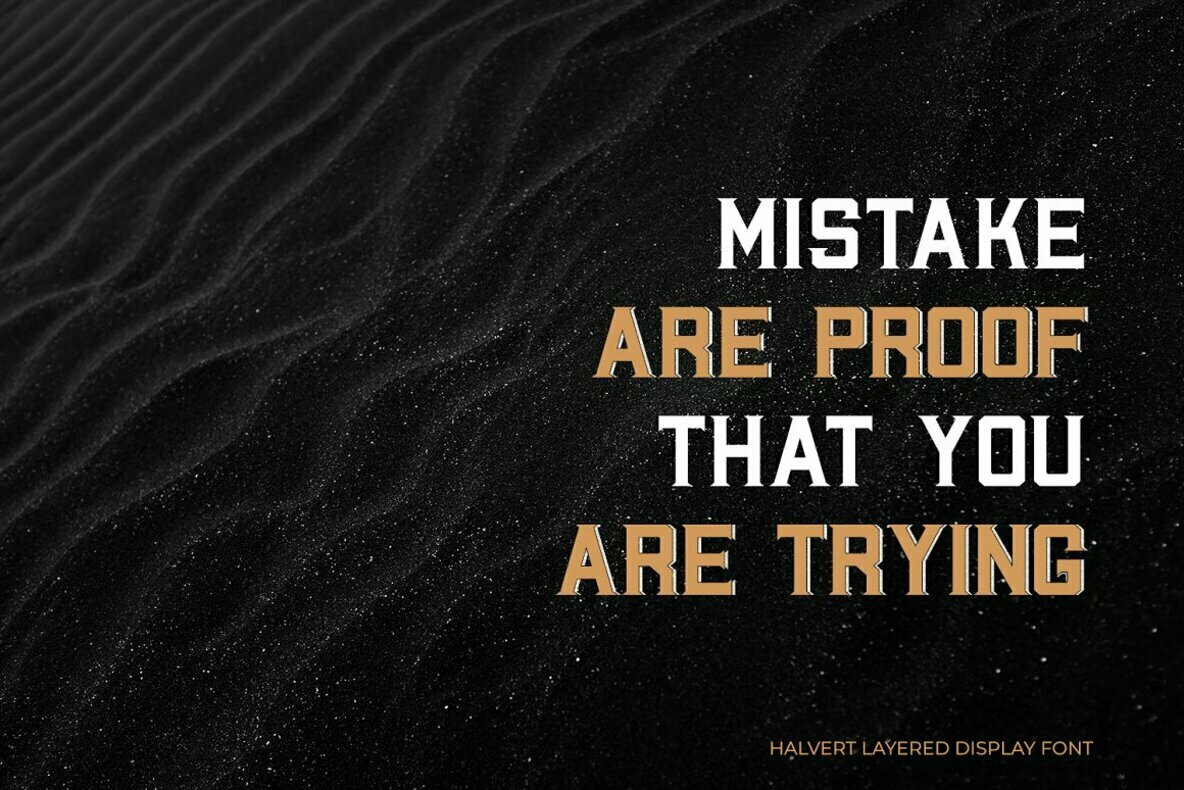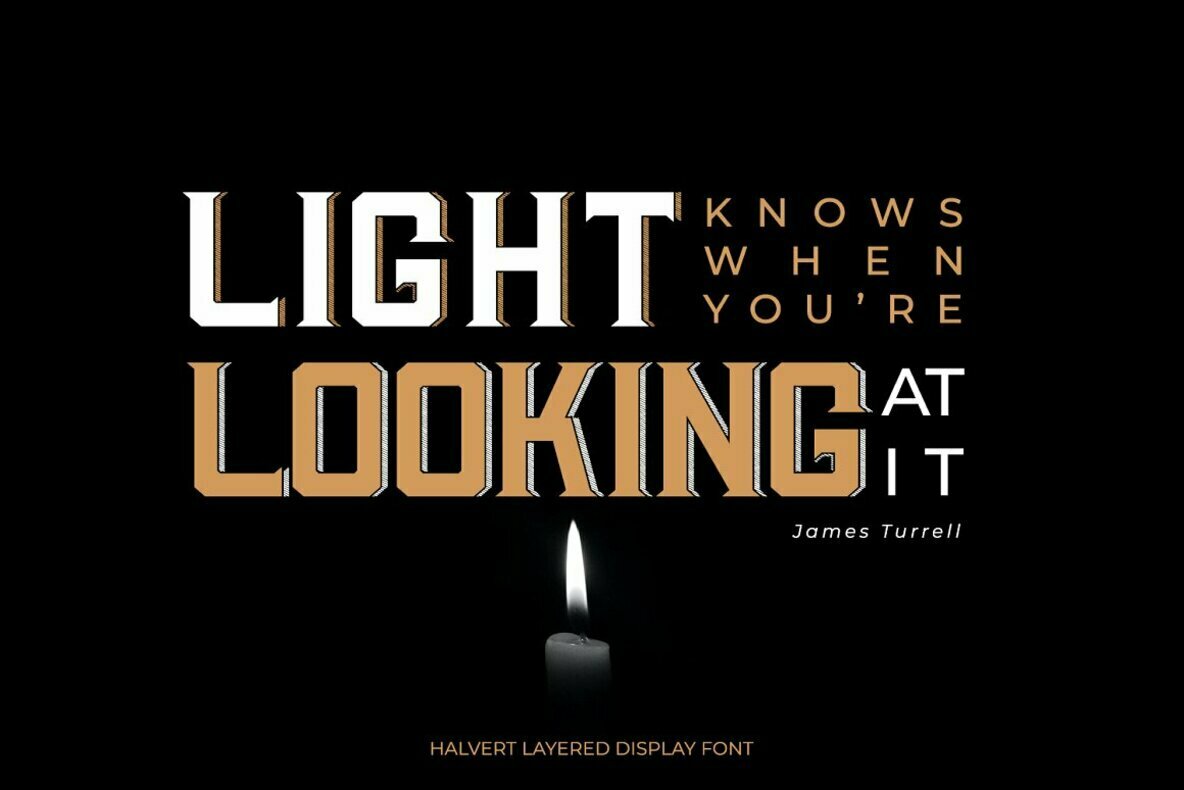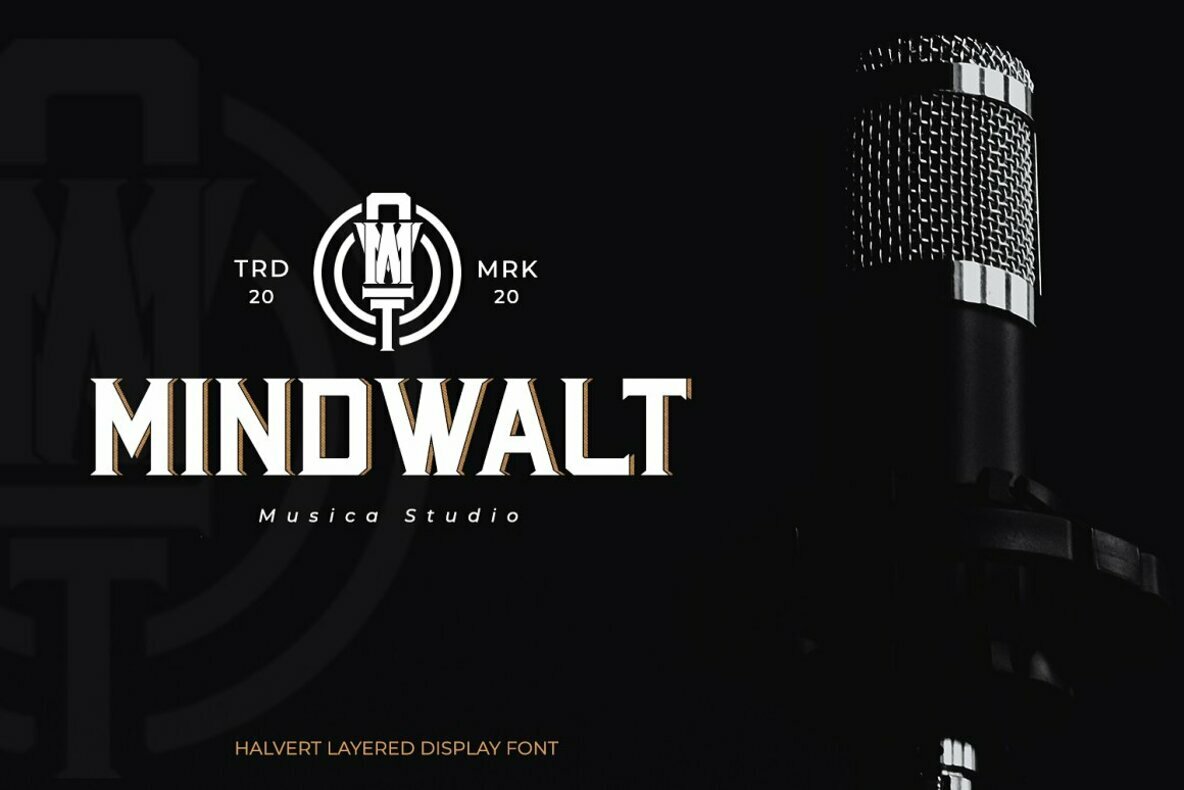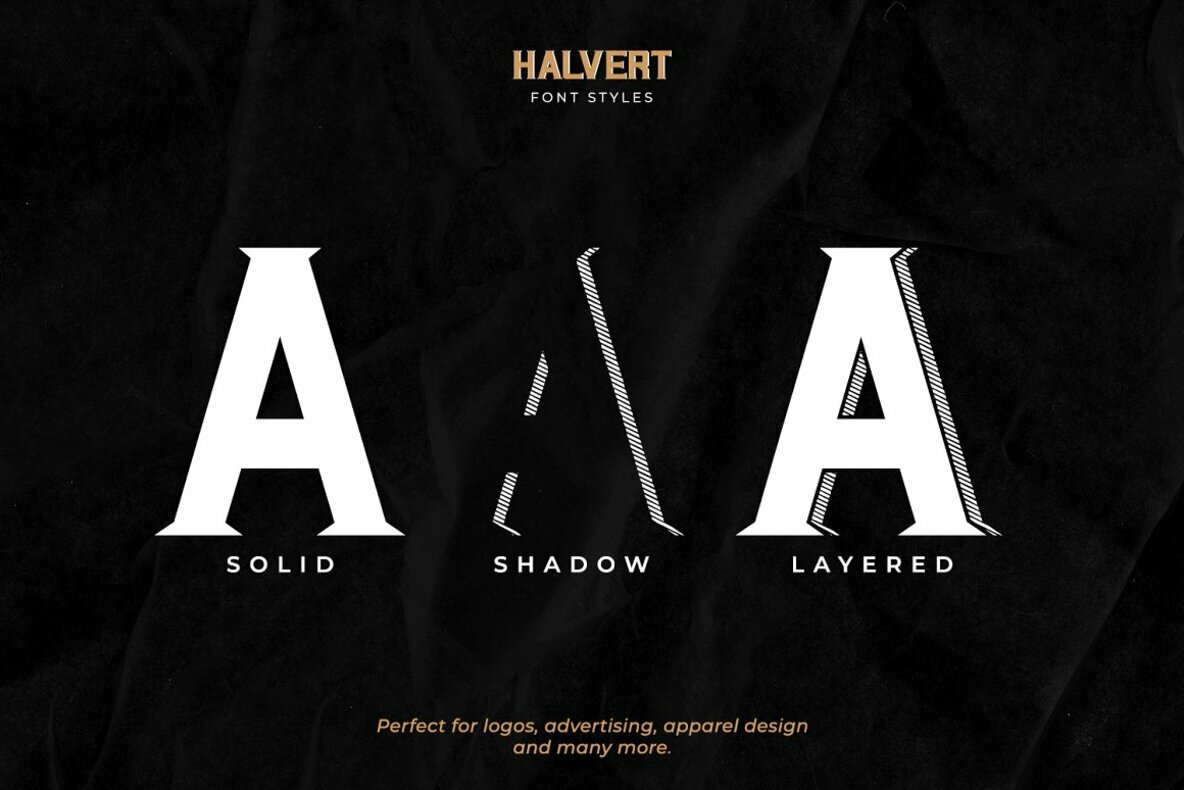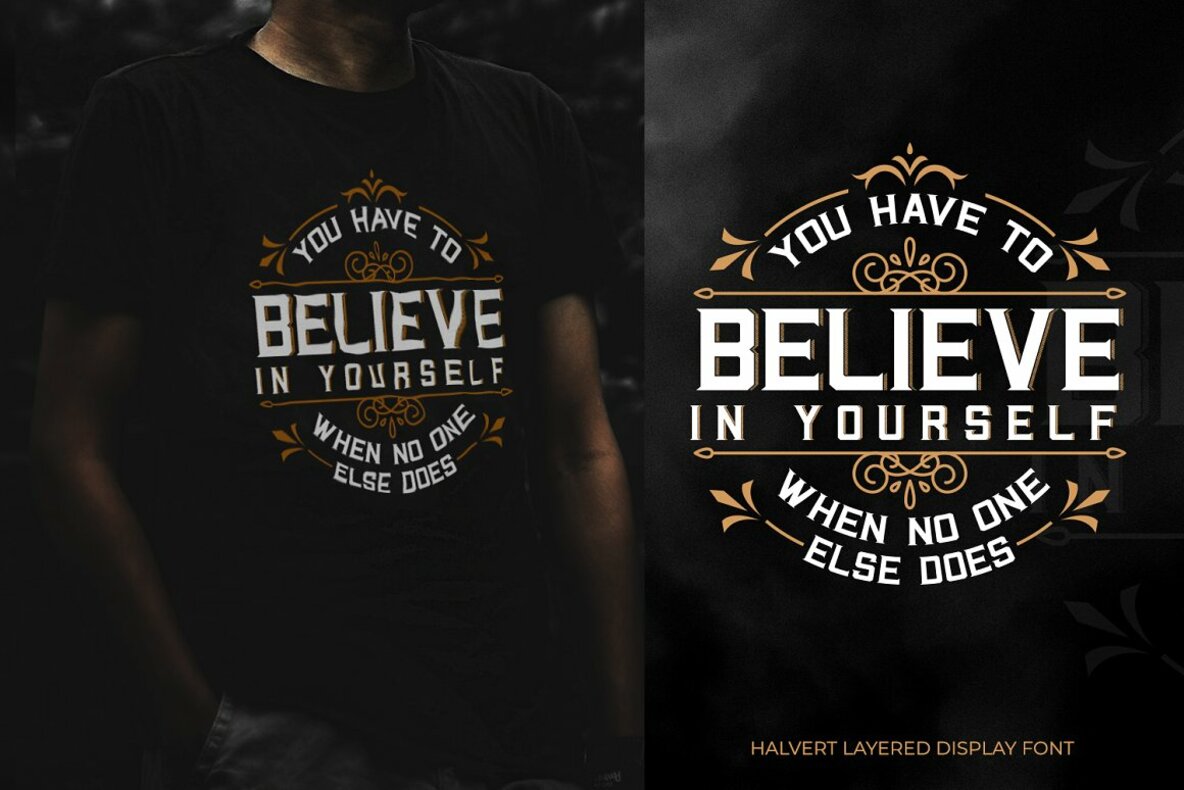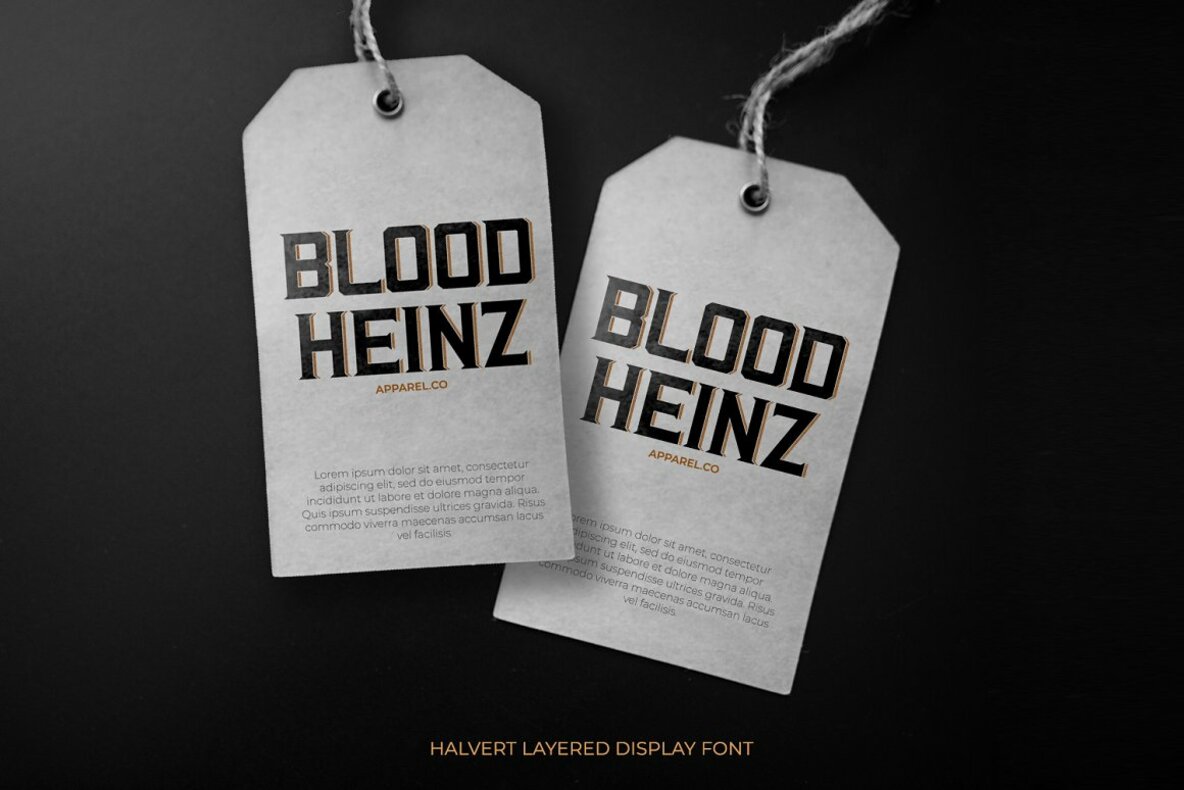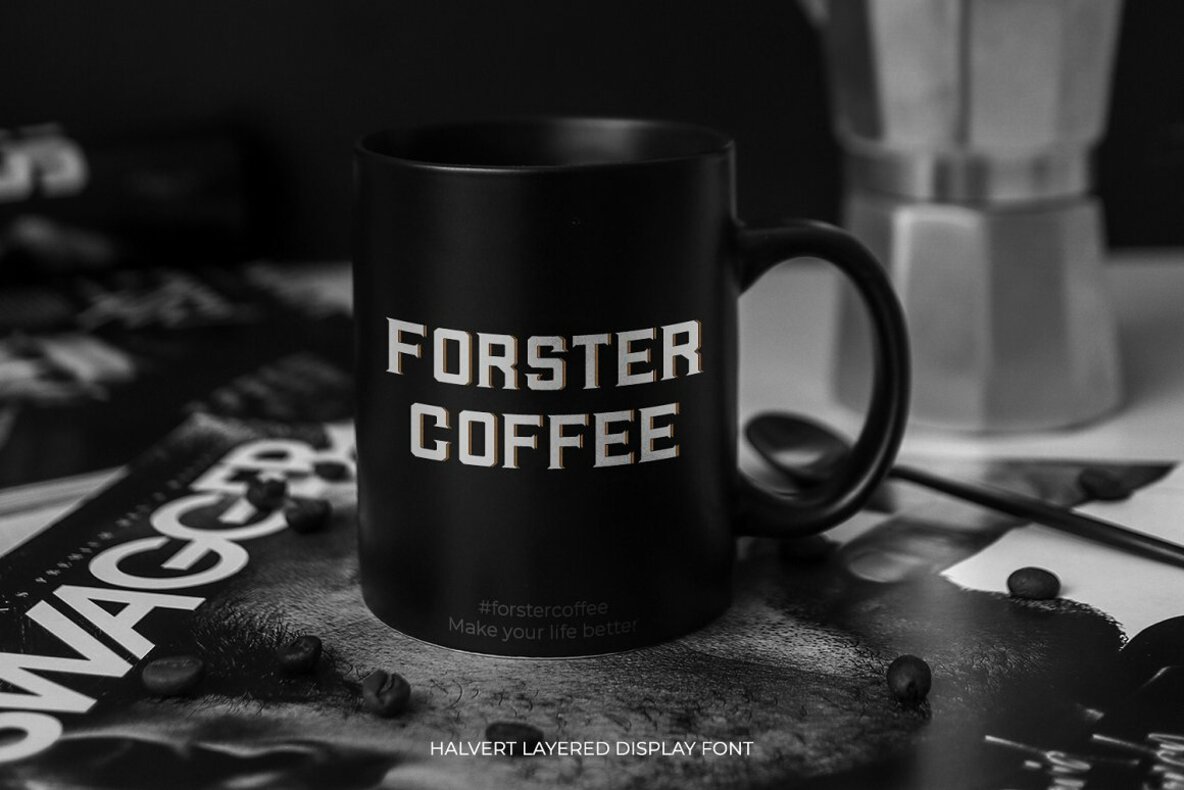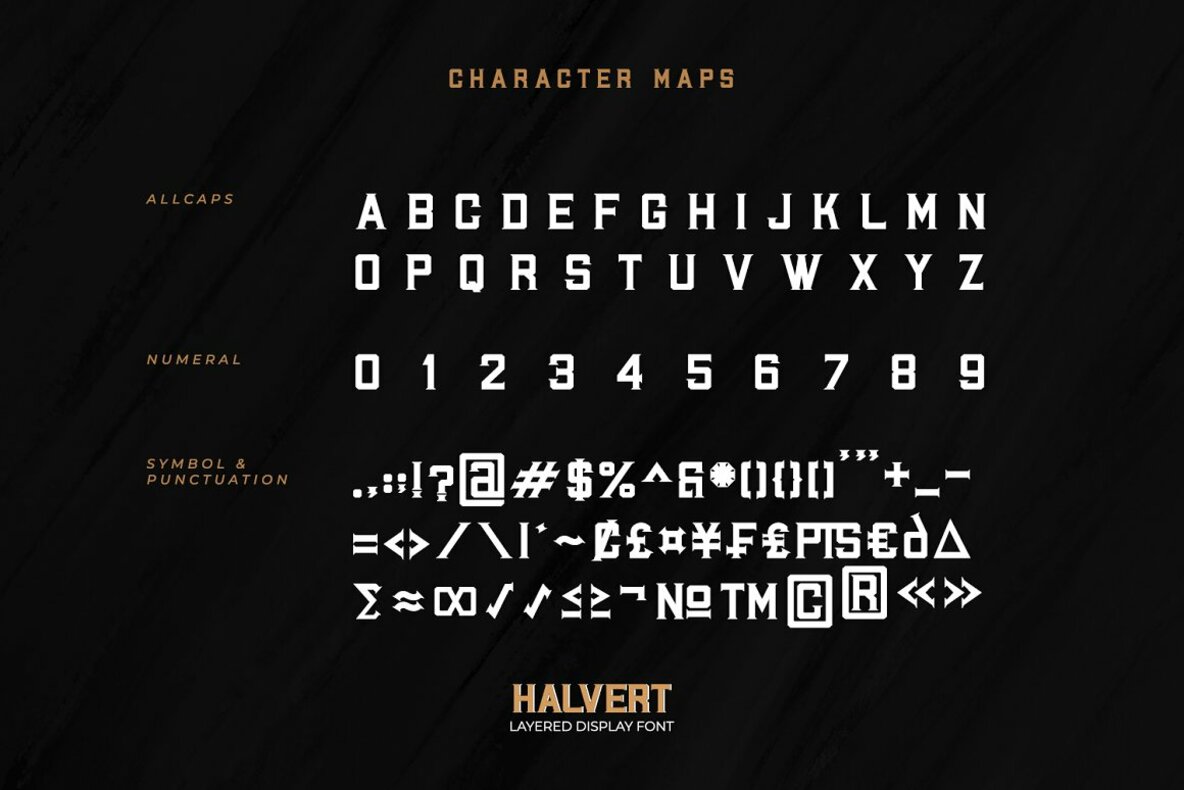
Halvert Font
Halvert commands attention with its striking design, making it an excellent choice for diverse applications, from branding to t-shirt prints. This display font by Din Studio stands out in any creative project, offering a bold aesthetic that captures your audience's interest.Halvert: Bold Display Font for Versatile Design